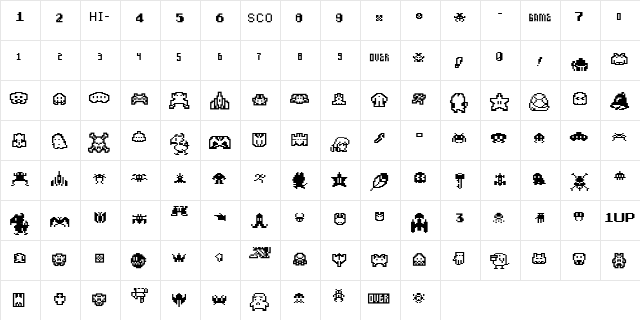
1977 .4.0 Font Preview
1977 .4.0
Design Context for 1977 Typeface
1977 is a composed and adaptable typeface that performs quietly and consistently across a wide range of design contexts.